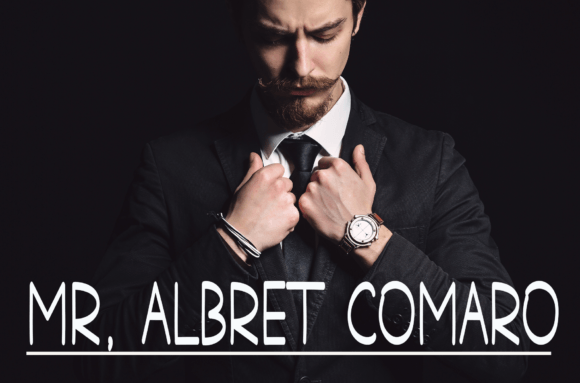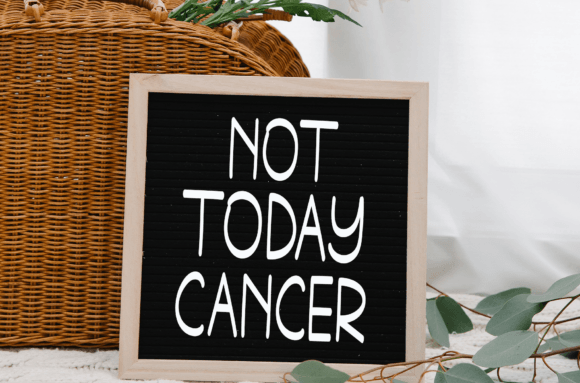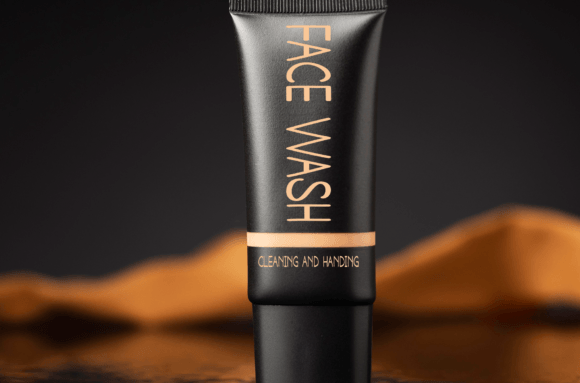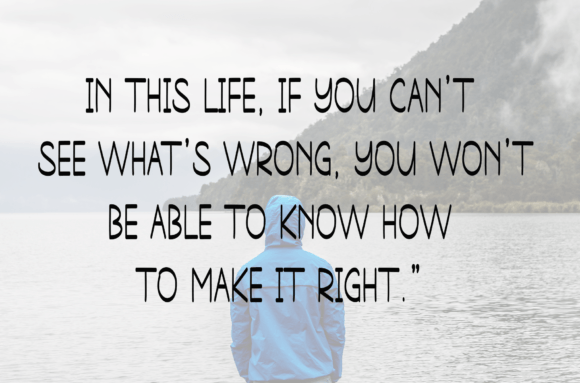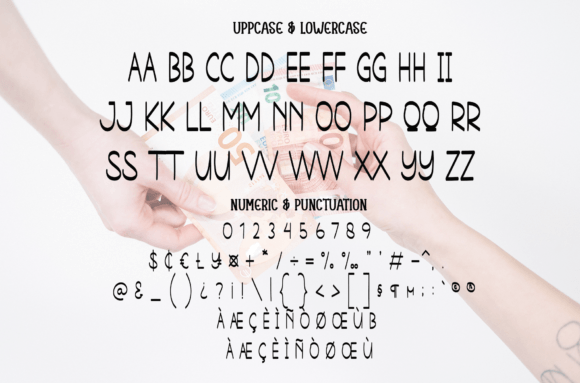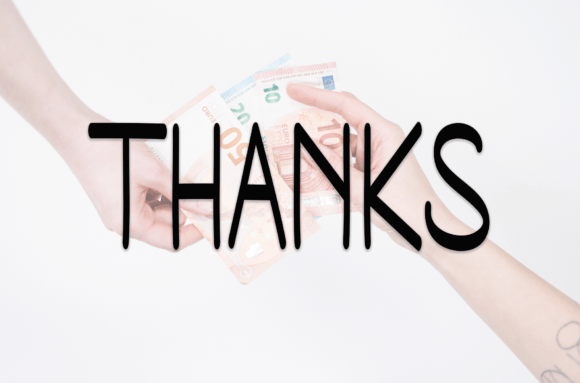
Introducing Changes Font: The Sweet and Friendly Handwritten Font You Need
Are you a designer or crafter looking for a font that adds a touch of warmth and personality to your designs? Look no further than Changes Font, a sweet and friendly handwritten font that’s perfect for a variety of creative projects. In this article, we’ll take a closer look at Changes Font, its features, and how you can use it to elevate your designs.
What is Changes Font?
Changes Font is a beautiful, handwritten font that’s fresh, neat, and full of character. Its sweet and friendly vibe makes it an ideal choice for designs that require a personal touch. Whether you’re creating wedding invitations, greeting cards, or any other type of design that needs a fun and playful twist, Changes Font is the perfect choice.
Key Features of Changes Font
- Handwritten style: Changes Font has a lovely handwritten style that’s perfect for adding a personal touch to your designs.
- Fresh and neat: The font is clean, fresh, and easy to read, making it perfect for a variety of design applications.
- Sweet and friendly vibe: Changes Font has a warm and inviting personality that’s sure to capture the hearts of your audience.
- Versatile: This font is perfect for a variety of design projects, from wedding invitations to social media graphics.
Use Cases for Changes Font
Changes Font is a versatile font that can be used in a variety of design projects. Here are some use cases to get you started:
- Wedding invitations: Changes Font is perfect for creating beautiful, personalized wedding invitations that set the tone for a special day.
- Greeting cards: Add a personal touch to your greeting cards with Changes Font, making them extra special for birthdays, holidays, and other celebrations.
- Social media graphics: Use Changes Font to create engaging social media graphics that showcase your brand’s personality.
- Blog posts: Add a touch of warmth and personality to your blog posts with Changes Font, making them more relatable and engaging.
Tips for Using Changes Font
Here are some tips to help you get the most out of Changes Font:
- Pair with other fonts: Experiment with pairing Changes Font with other fonts to create a unique and visually appealing design.
- Use in combination with images: Combine Changes Font with beautiful images to create stunning designs that capture attention.
- Experiment with colors: Try out different color combinations to find the perfect match for your design and brand.
Changes Font is a sweet and friendly handwritten font that’s perfect for designers and crafters looking to add a personal touch to their designs. With its fresh and neat style, Changes Font is ideal for a variety of creative projects, from wedding invitations to social media graphics. By following the tips outlined in this article, you can unlock the full potential of Changes Font and create stunning designs that capture the hearts of your audience.